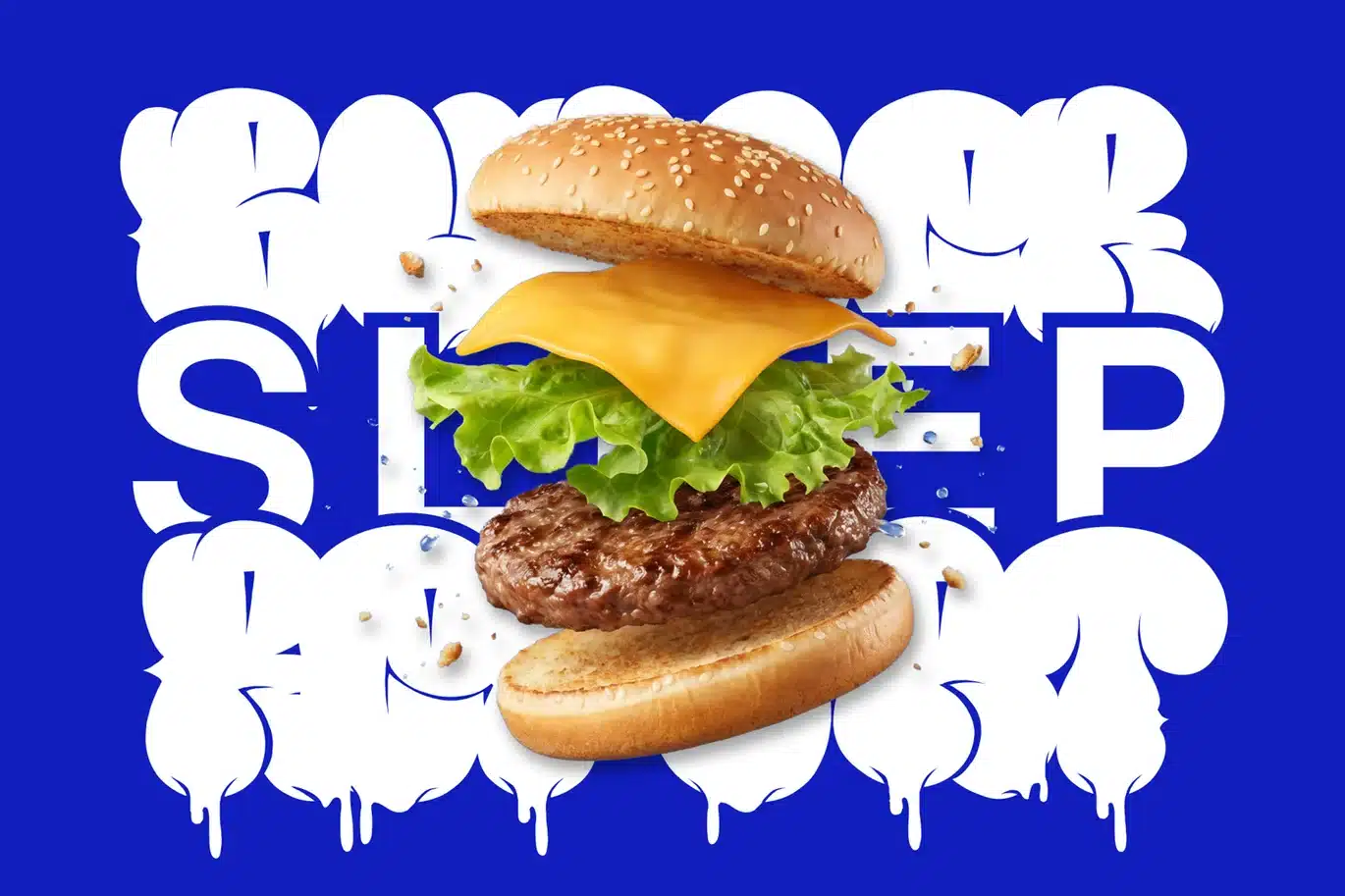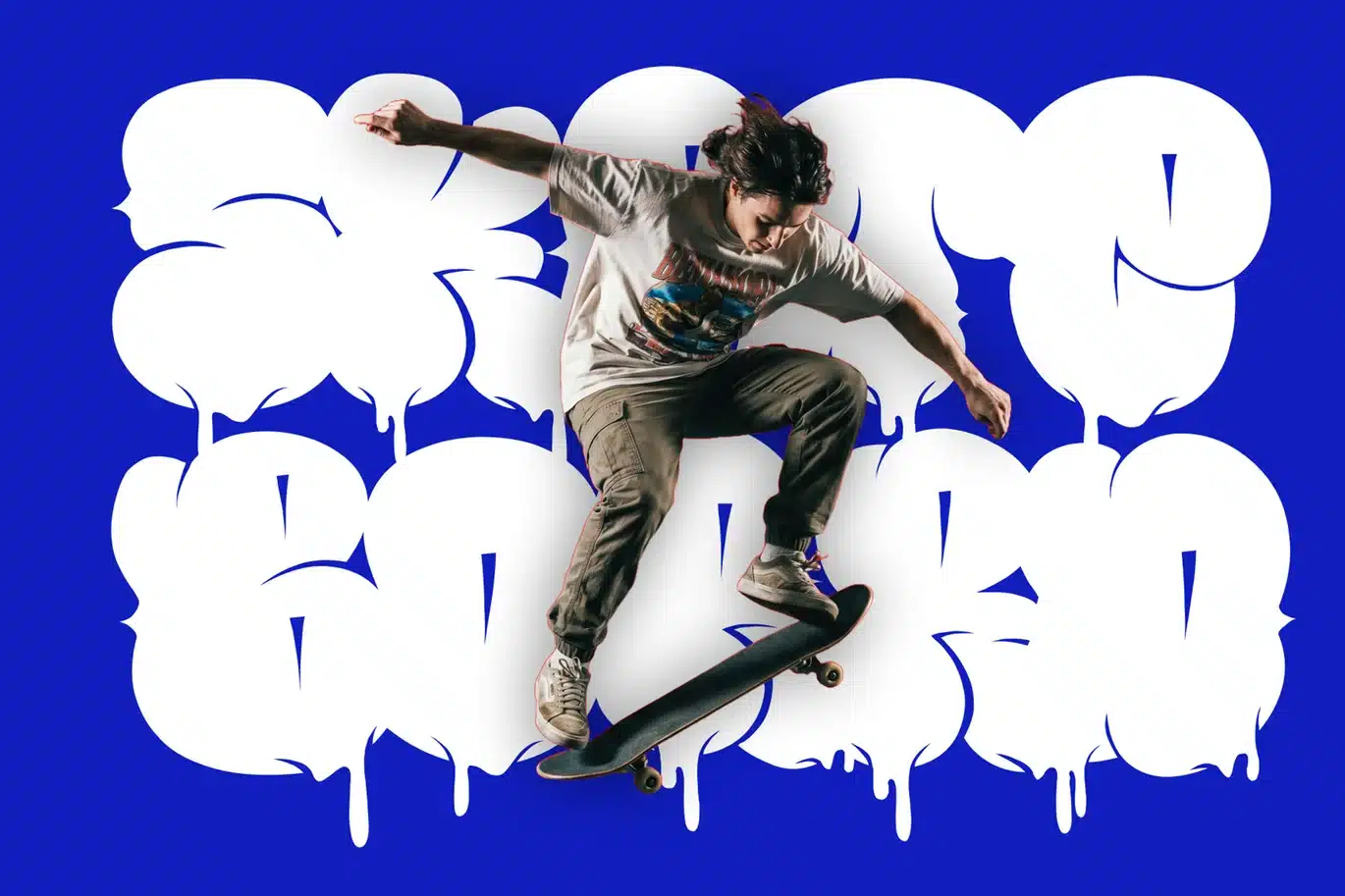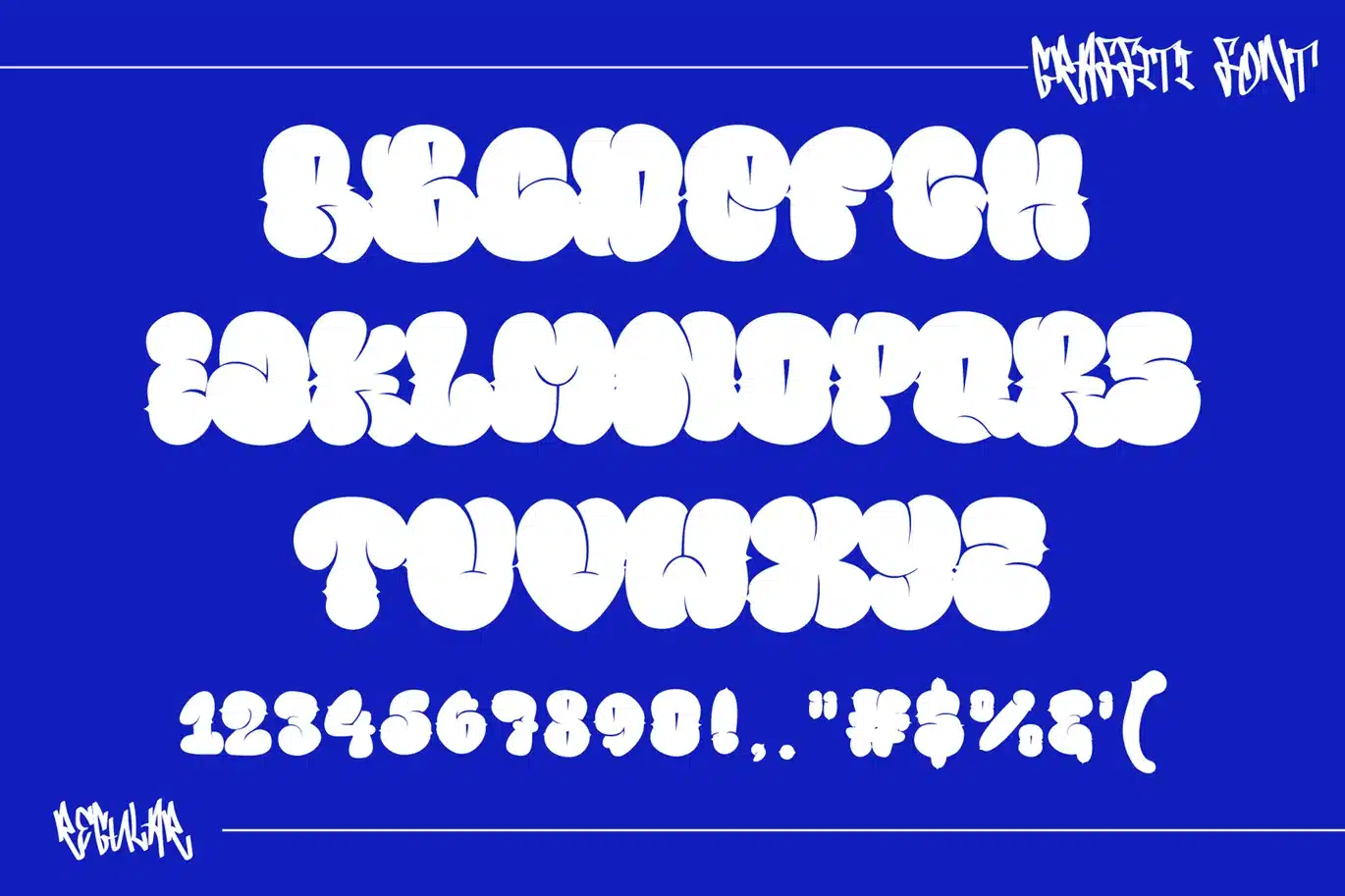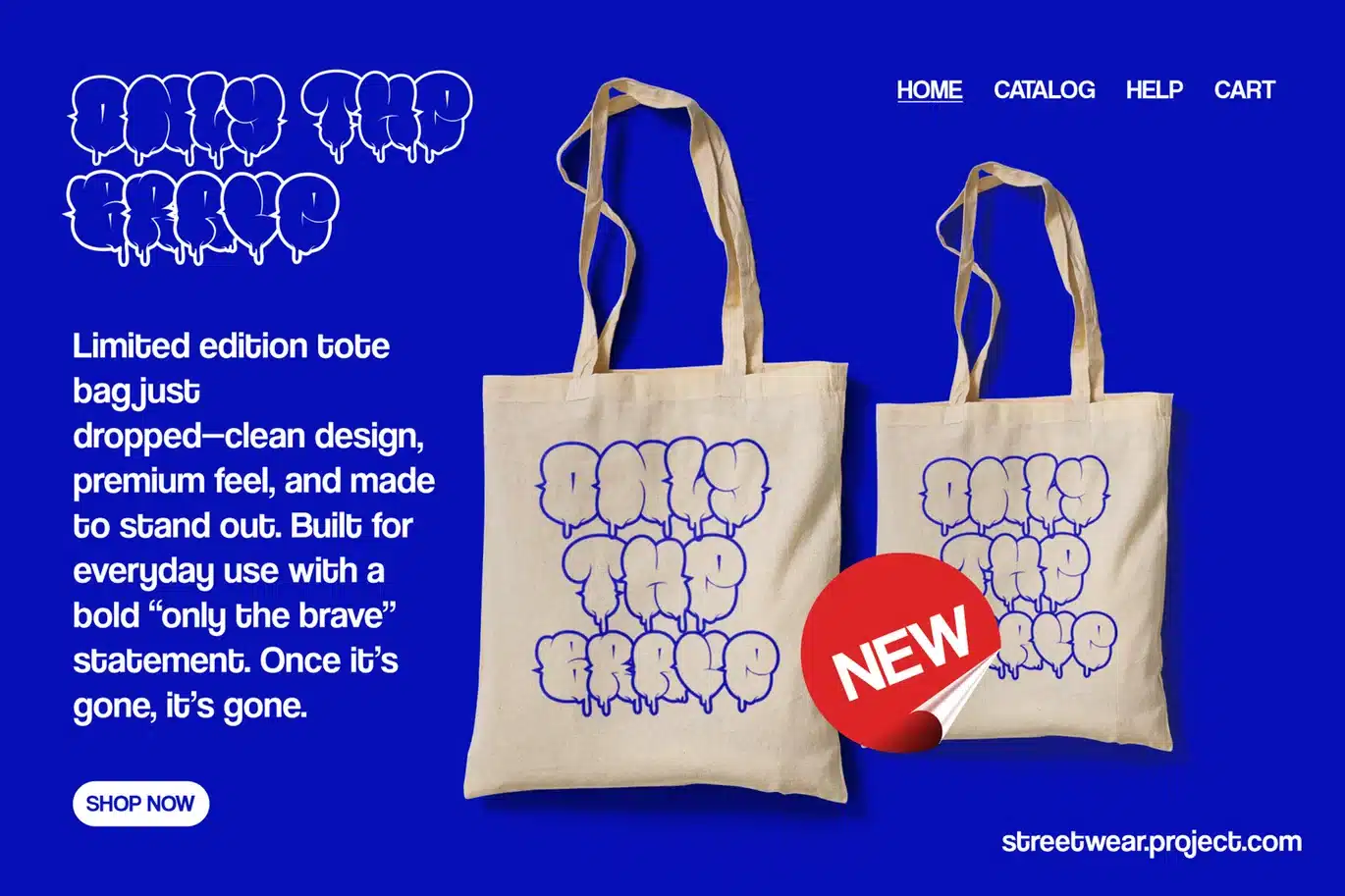
Melto Gofer – Bubble Graffiti Dripping Font
Melto Gofer – Bubble Graffiti Dripping Font is designed to deliver a strong visual impact through playful shapes and dripping details. This typeface combines rounded bubble forms with a graffiti-inspired structure, creating a dynamic look that works well for eye-catching layouts and expressive compositions.
With both uppercase and lowercase characters, Melto Gofer gives you flexibility when building typography. The letterforms feel energetic and fluid, while the dripping style adds a sense of motion and attitude. It’s a solid choice for posters, thumbnails, social media graphics, titles, and any project that needs bold and readable text with character.
The font is carefully crafted to maintain clarity even at larger sizes, making it suitable for display use. Whether used for headlines or focal typography, it helps create a strong visual hierarchy and clear communication.
Key Features
- Uppercase & Lowercase Characters – flexible text composition
- Multilingual Support – supports various languages and accents
- Bubble Graffiti Style – rounded shapes with expressive structure
- Dripping Version Included – adds extra visual detail and variation
- Display Focused Design – suitable for headlines and large typography
- Clear Letterforms – maintains readability in bold layouts
Designers choose Melto Gofer because it offers a balance between expressive style and usability. The combination of bubble shapes and dripping elements allows for creative freedom without sacrificing readability.
The availability of both regular and drip styles makes it easy to switch between clean and more detailed looks depending on the project. This flexibility helps speed up workflow and supports consistent design systems.
Multilingual support also allows the font to be used across different regions, making it practical for broader audiences. Its strong presence works well in digital graphics, promotional materials, and content that needs to stand out quickly.